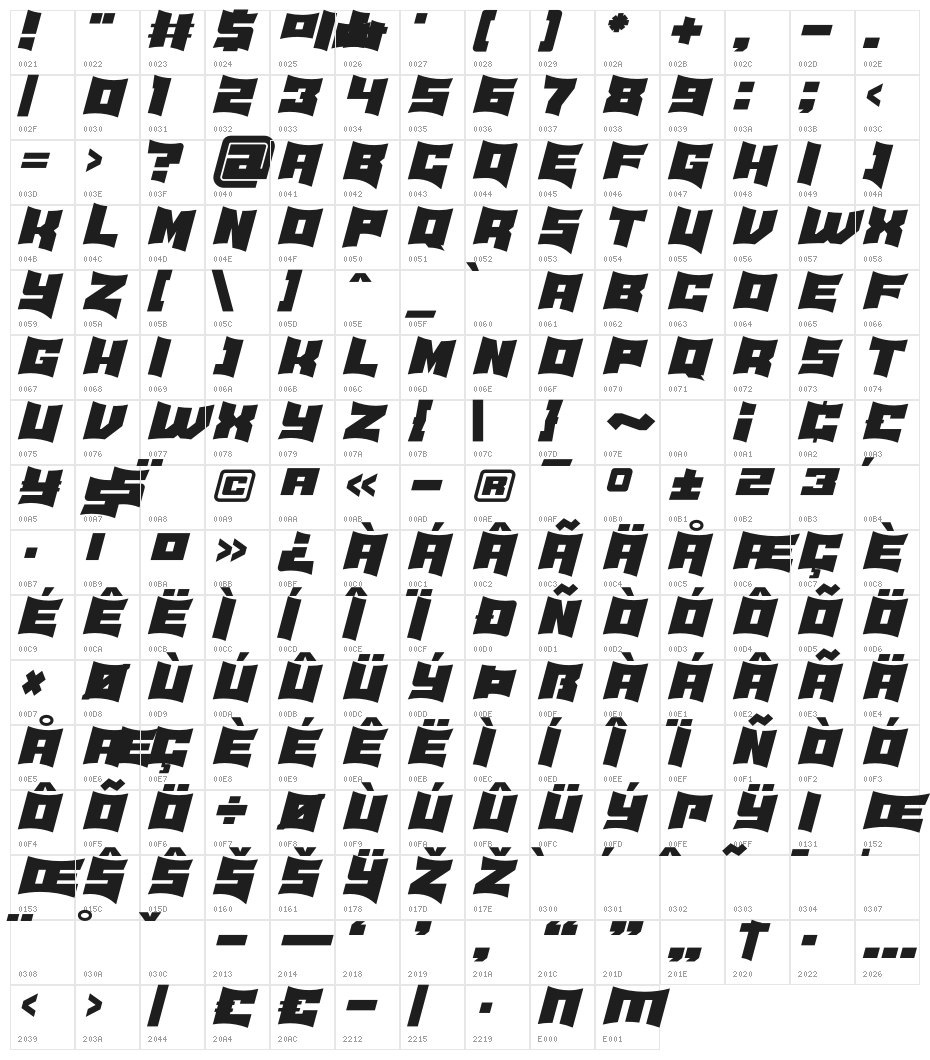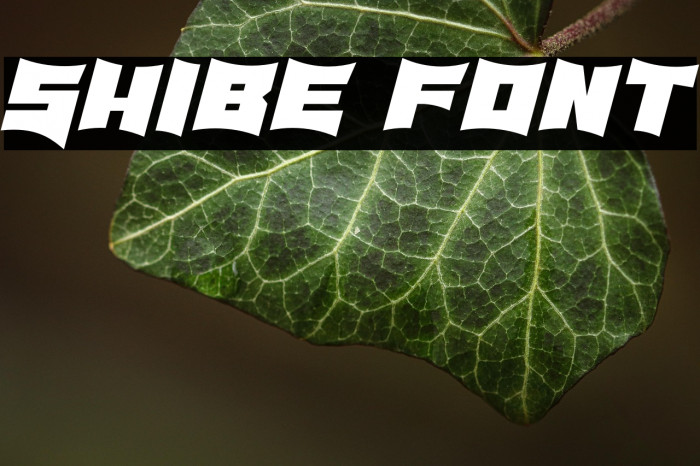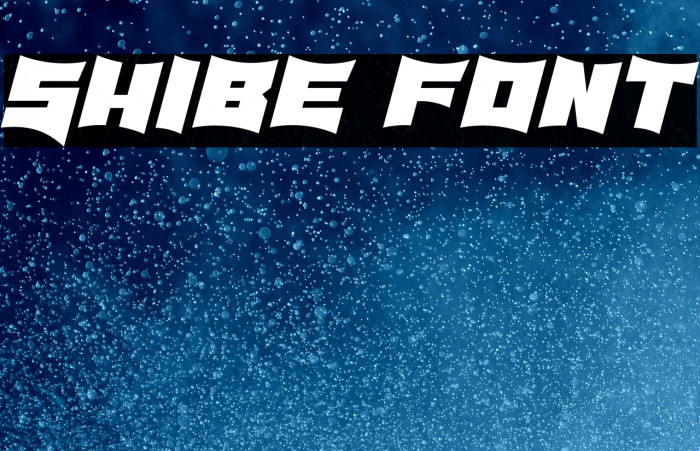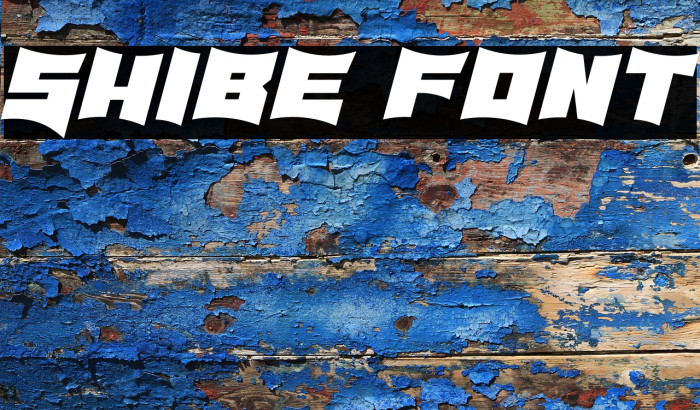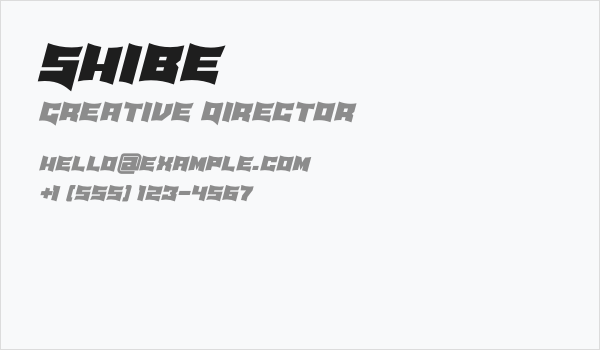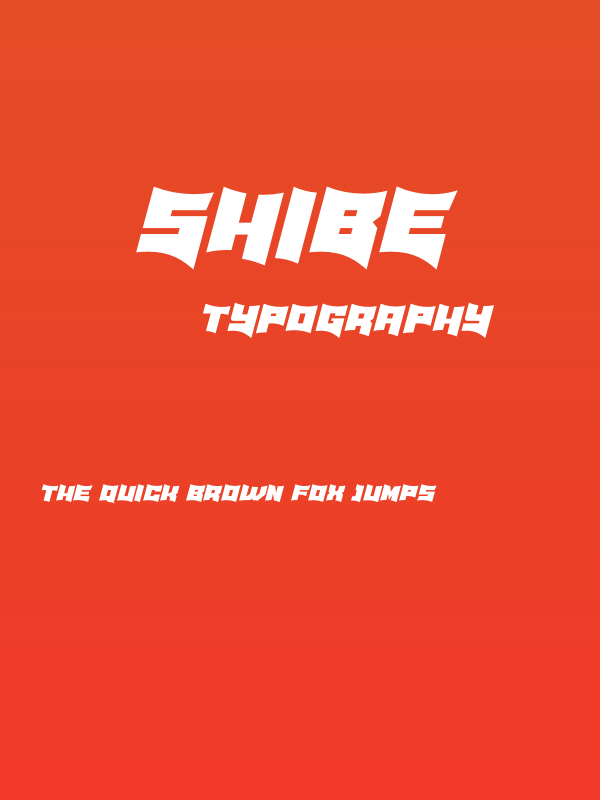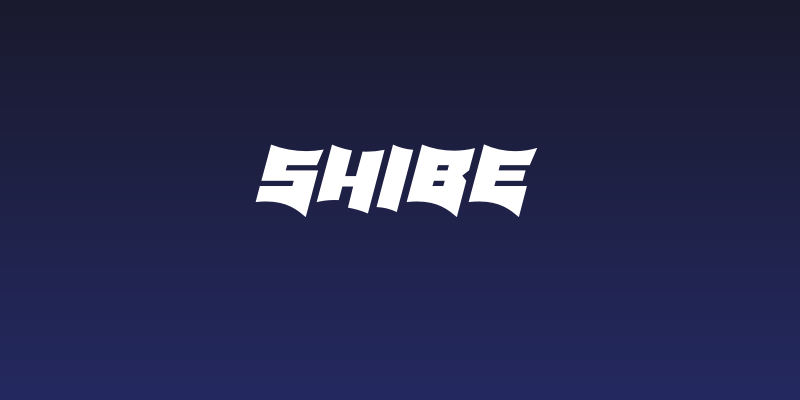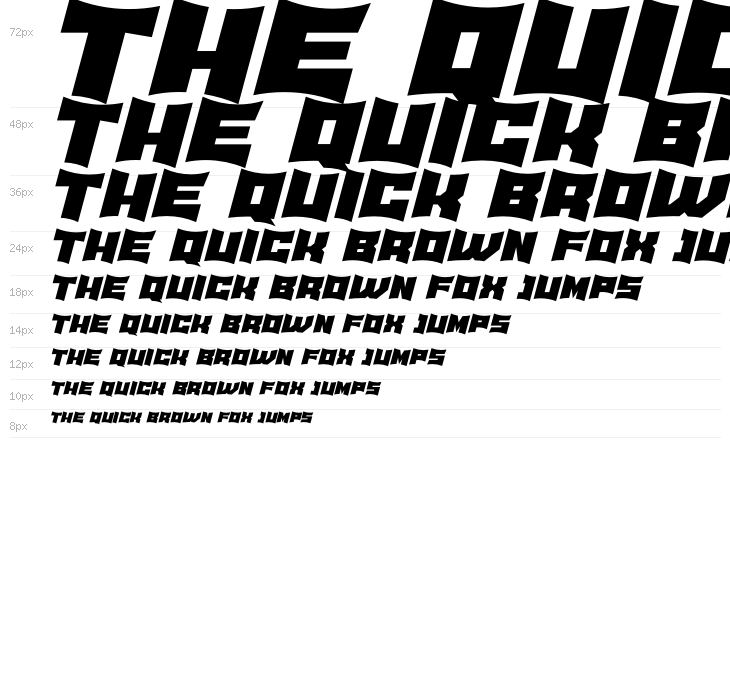
Shibe Font
Shibe Description
This font features a bold and dynamic style with sharp, angular edges that give it a futuristic and aggressive appearance. The characters are slightly slanted, adding a sense of motion and energy. The uppercase and lowercase letters maintain a consistent design, with the lowercase being slightly smaller but equally impactful. Numbers and special characters follow the same stylistic cues, ensuring uniformity across all glyphs. The thick strokes and unique shapes make it stand out, making it suitable for eye-catching designs.
| Proposed Projects | Ideal for video game titles, sports team logos, posters, and any project needing a bold, energetic typeface. |